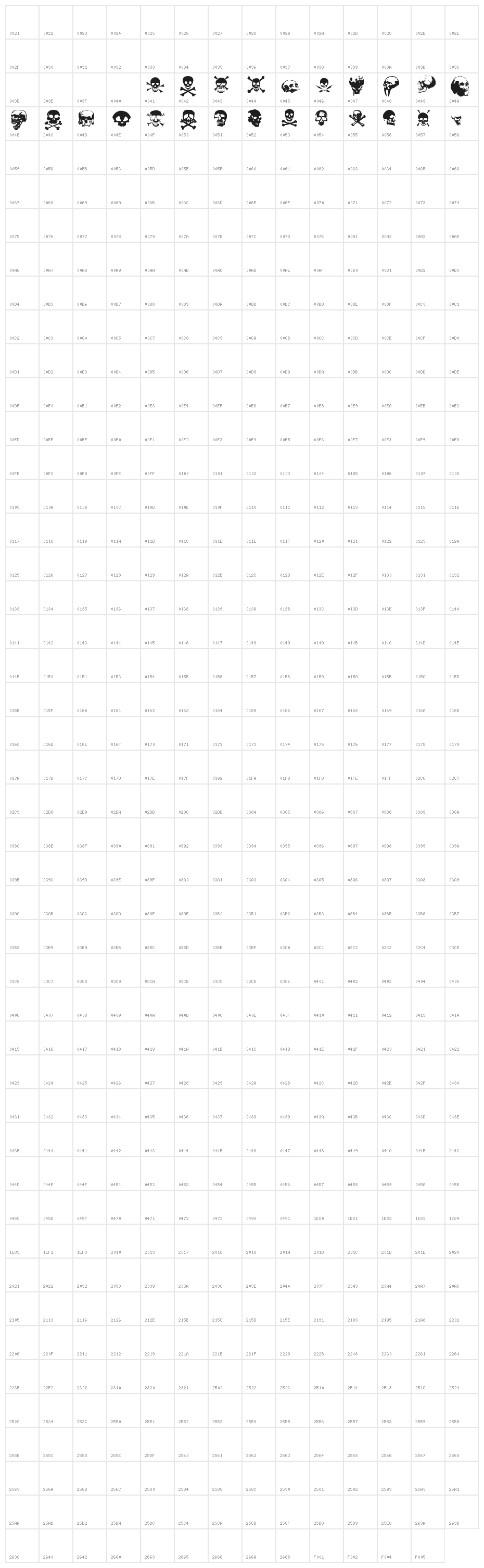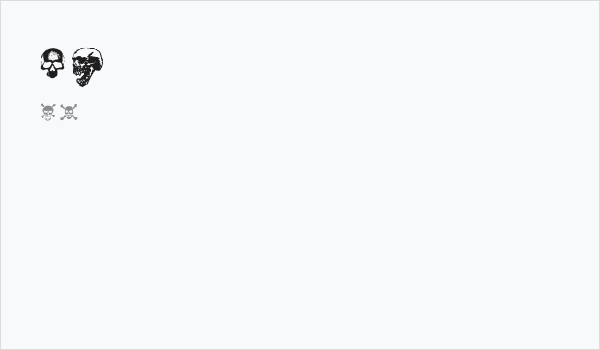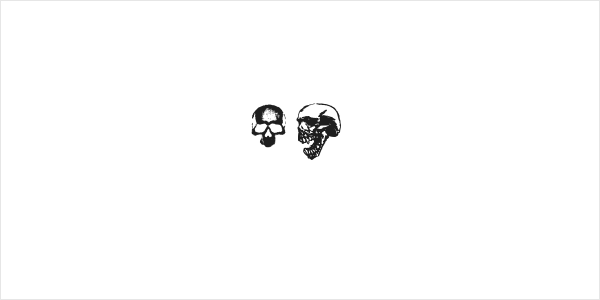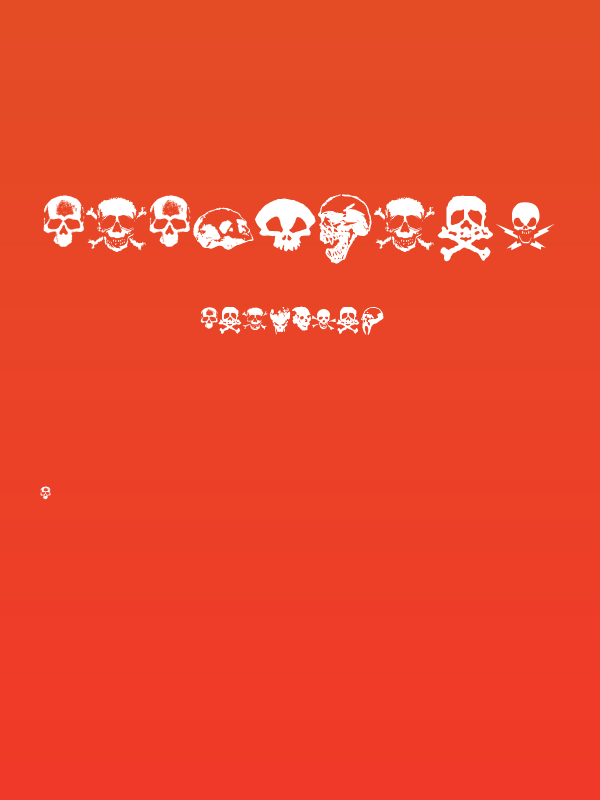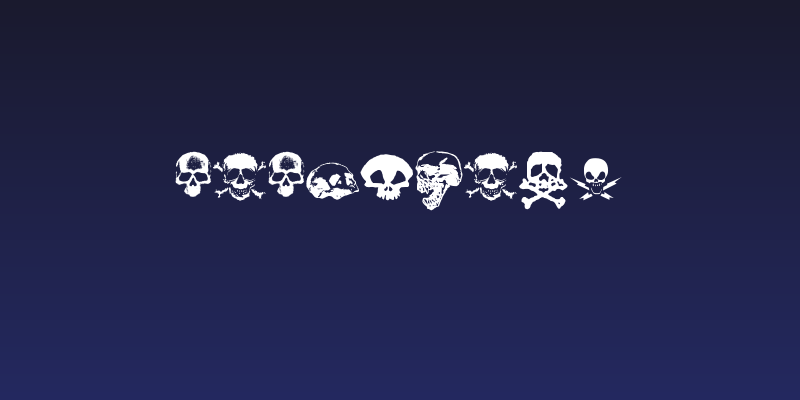
TotenKopf Font
TotenKopf Description
A decorative display font featuring a variety of distressed skull and crossbones illustrations in place of standard alphanumeric and symbol characters, rendered in bold, high-contrast black silhouettes with rough, grungy edges.
| Overall Style | Decorative, Grunge, Edgy |
| Use Case | Logos, Posters, Themed Graphics |
| Proposed Projects | Halloween posters, horror-themed event flyers, band logos, edgy merchandise, party invitations. |